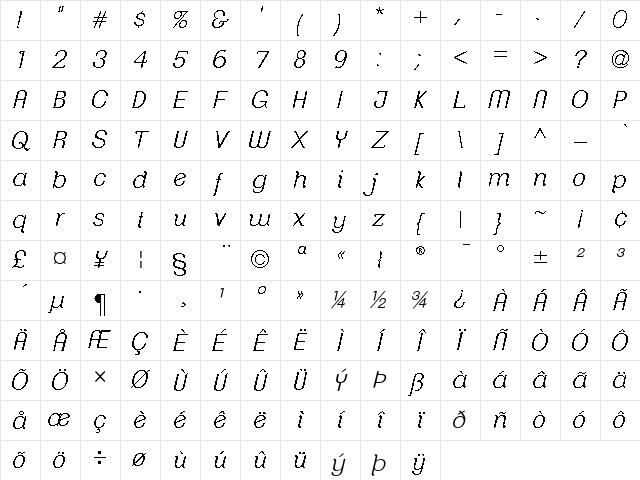
ClementePDaf LightItalic Free Font
ClementePDaf LightItalic
Style: LightItalic
Foundry: Prescott Design
Design Context for ClementePDaf
ClementePDaf is a composed and adaptable typeface that performs quietly and consistently across a wide range of design contexts. The slanted form adds forward momentum and visual energy. Its slender proportions lend an understated elegance to any composition.
Pro Tip: Use ClementePDaf for emphasis, pull quotes, and subheadings where its slanted energy can add rhythm to the layout.